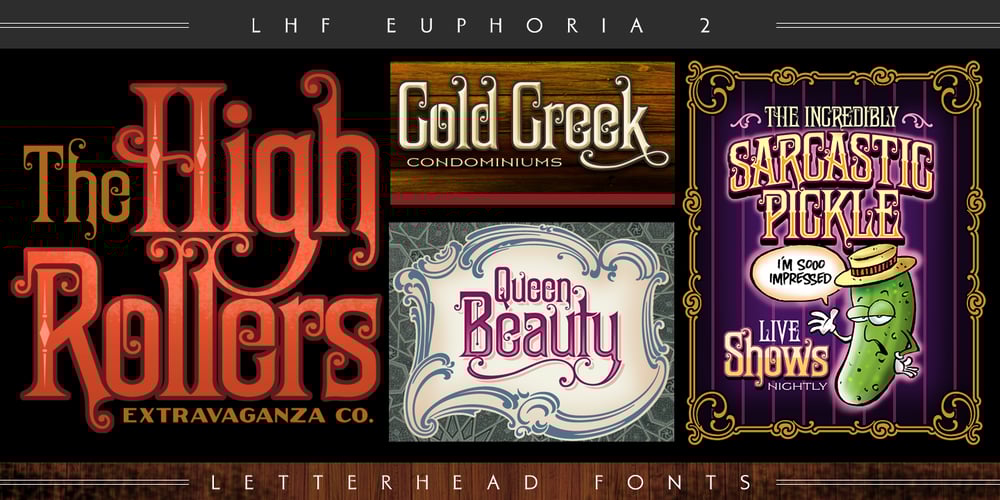
LHF Euphoria 2 Font Family was designed by Denise Bayers and published by Letterhead Fonts. LHF Euphoria 2 contains 4 styles and family package options. Victorian style font that was inspired by an old advertising letter style used throughout the late 1800’s and early 1900’s. Font set includes 4 interchangeable versions for maximum creativity.